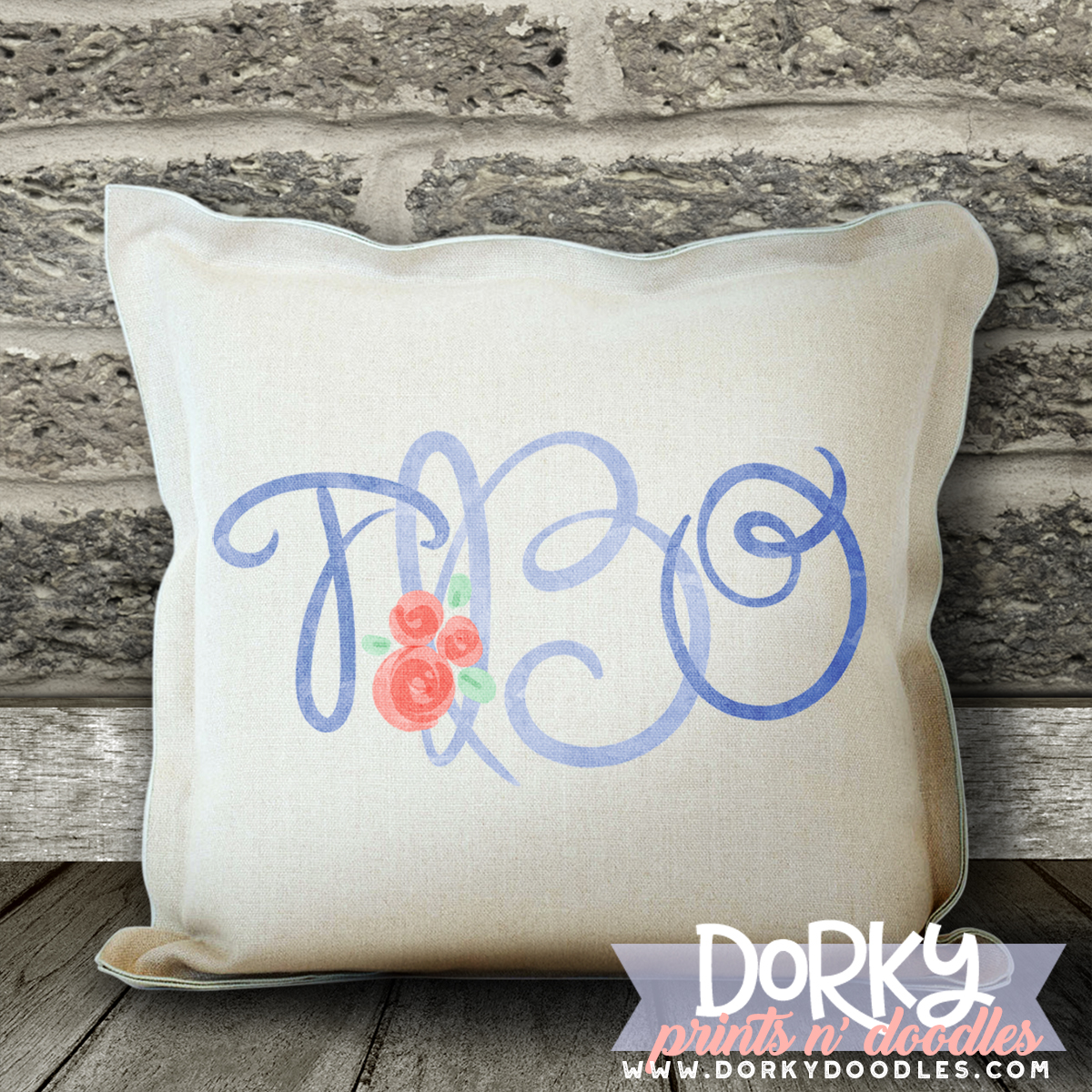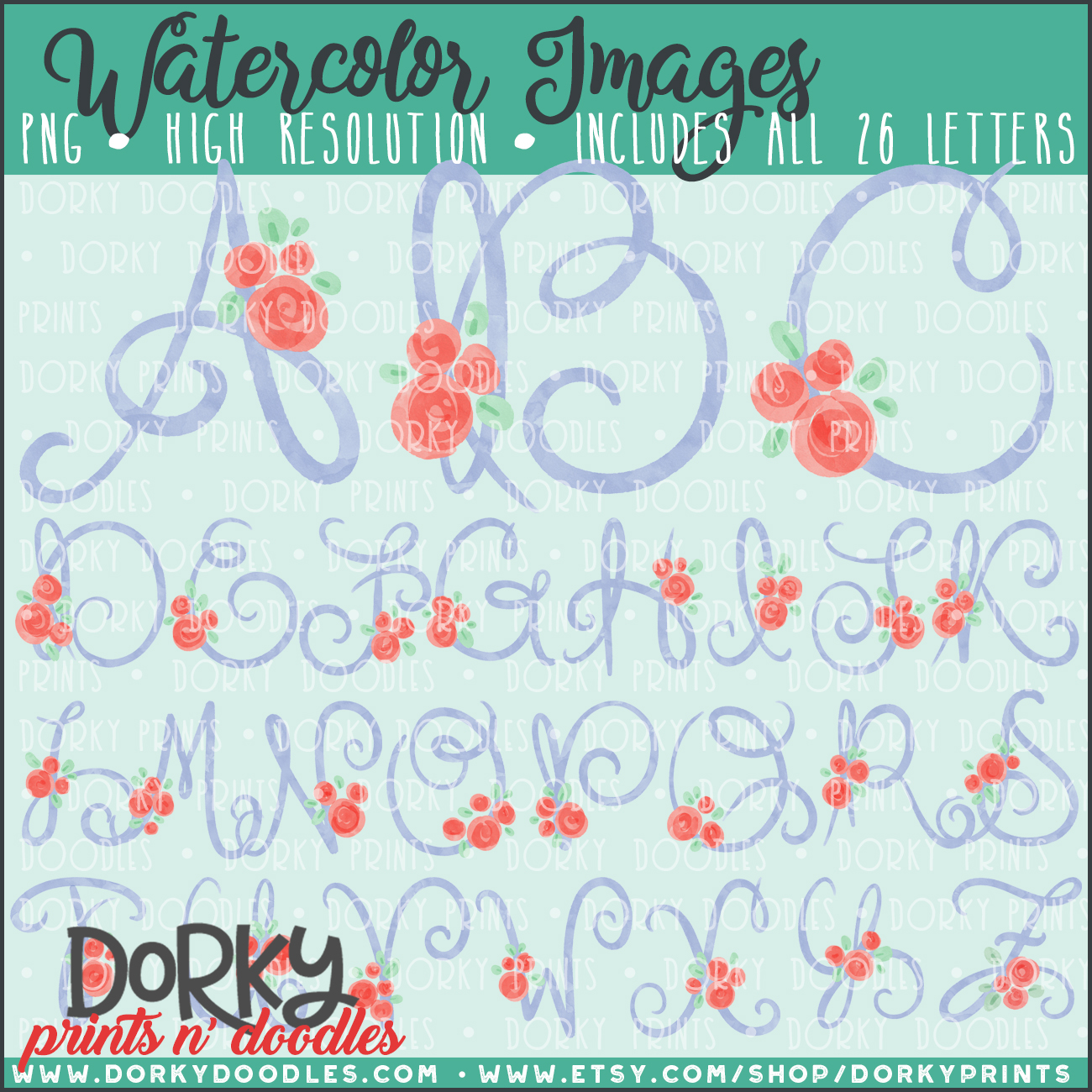
These hand drawn letter watercolor PNGs are ready to personalize all of your projects! It’s perfect for heat press projects, planners, card making, cookies, school projects, and more! This is the version that has a floral accent and has a matching letter in the plain Paulette font.